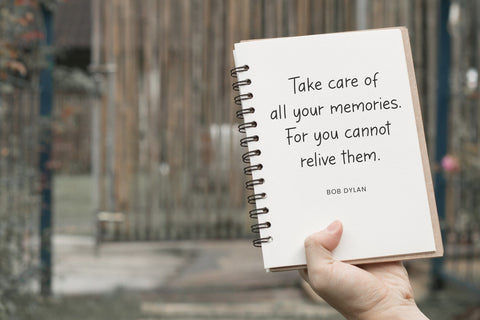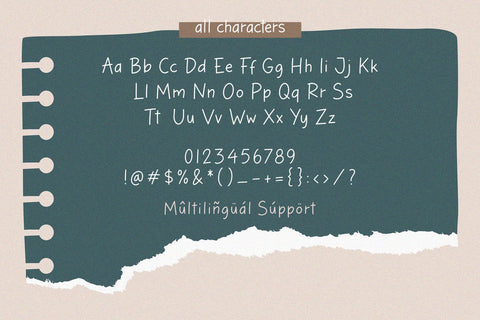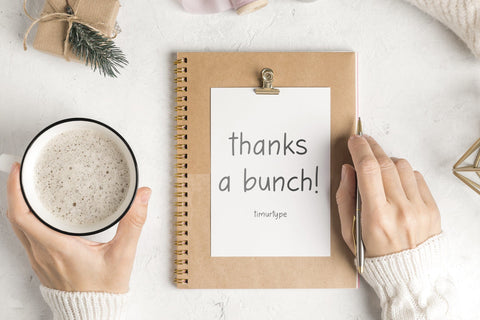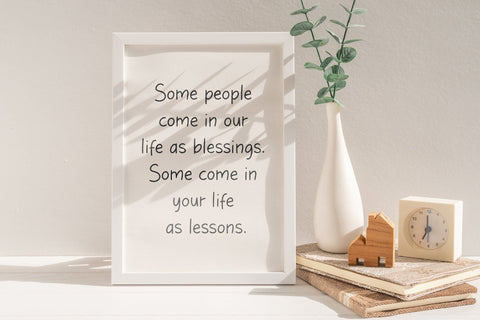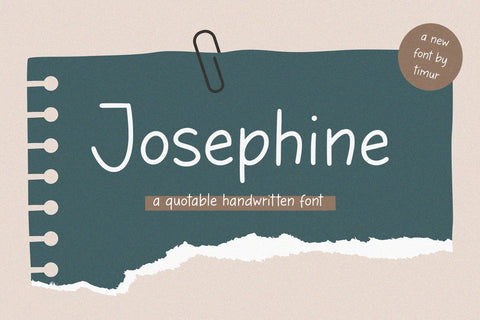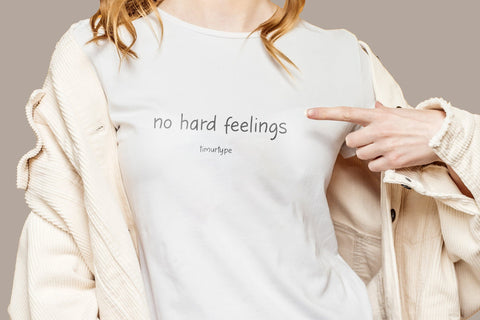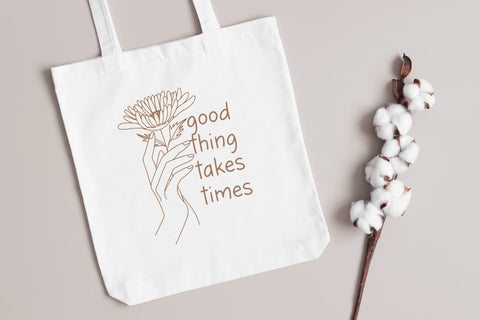
Josephine - Handwritten font
Josephine - Handwritten font , which was created with great care and specially created for you
Josephine is perfect for product packaging, branding project, megazine, social media, wedding, or just used to express words above the background.